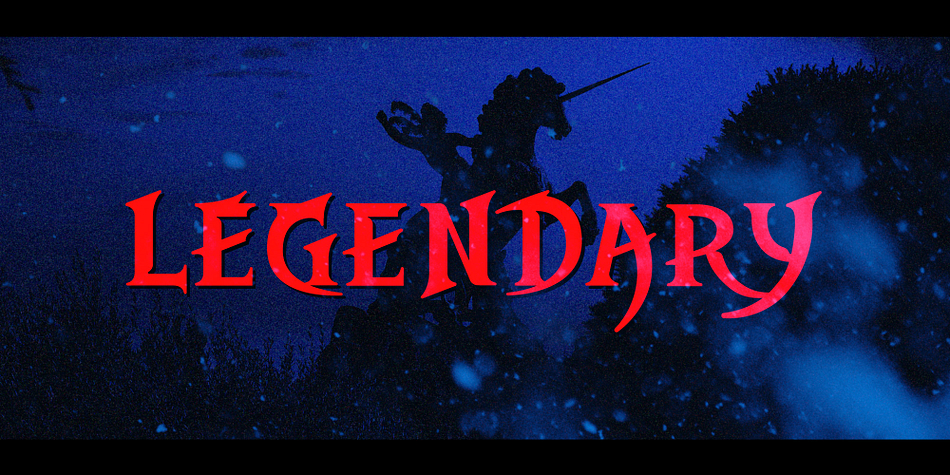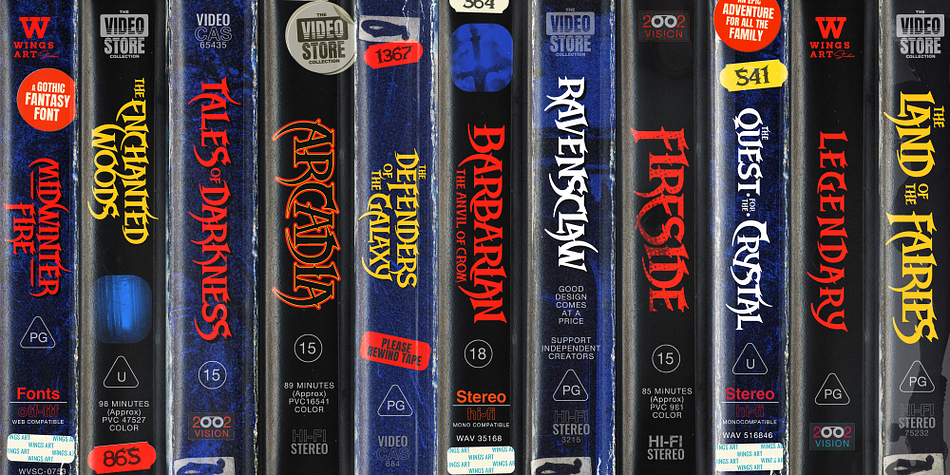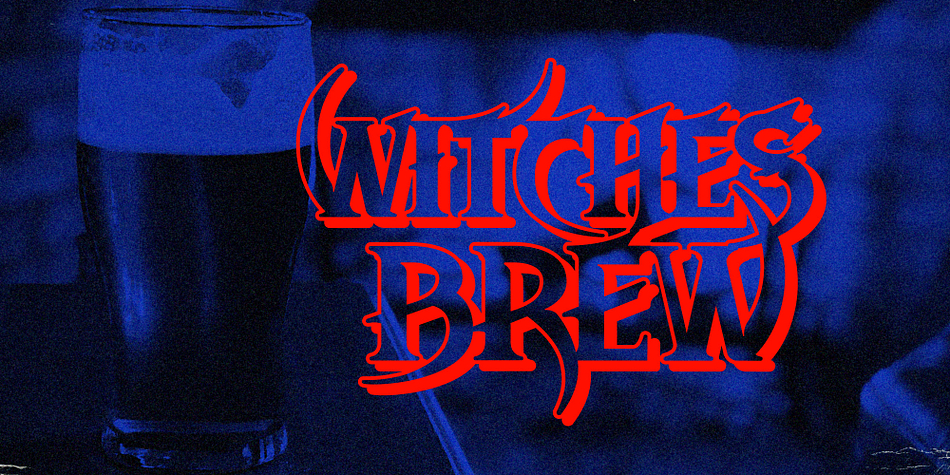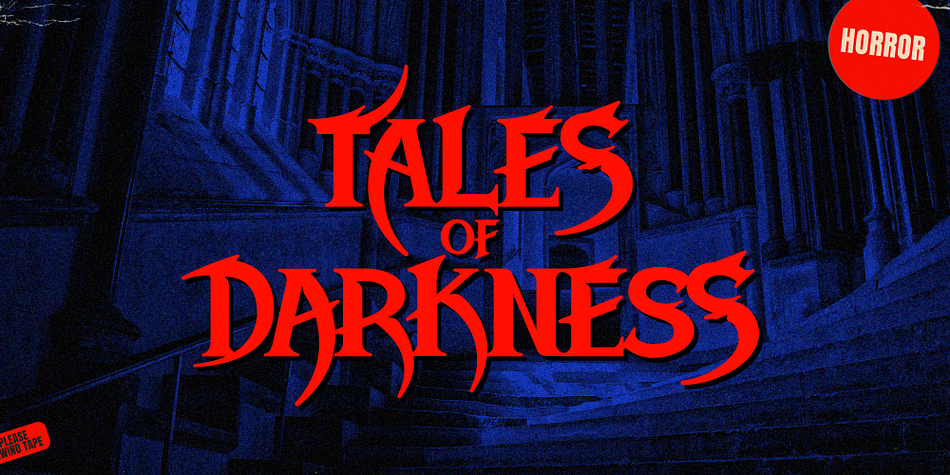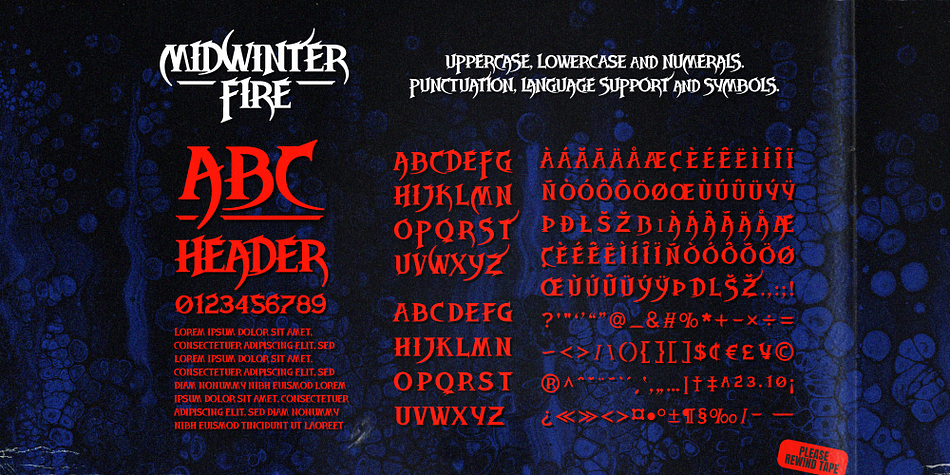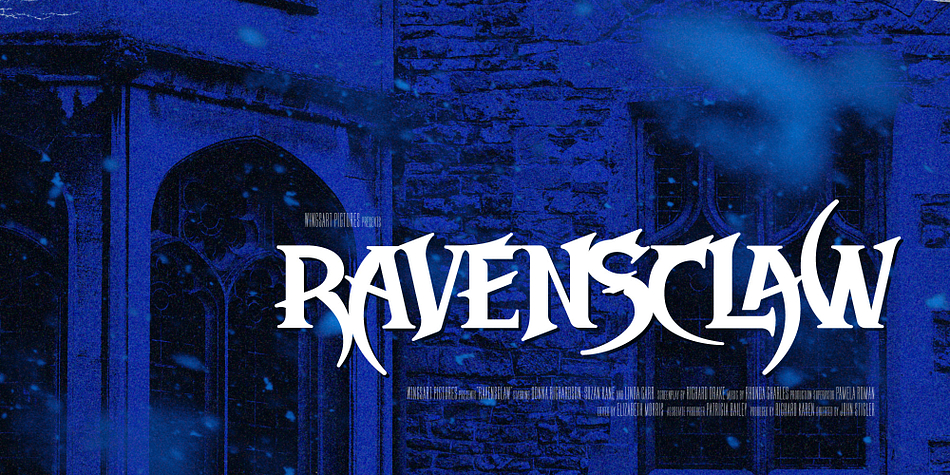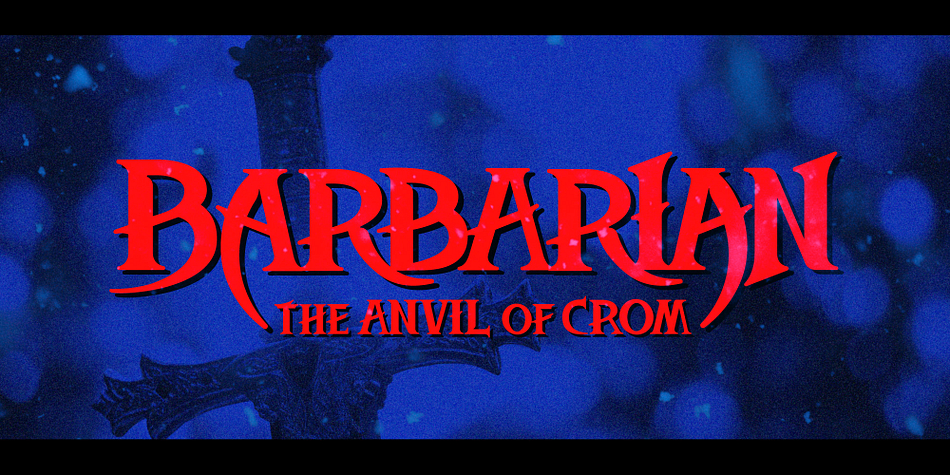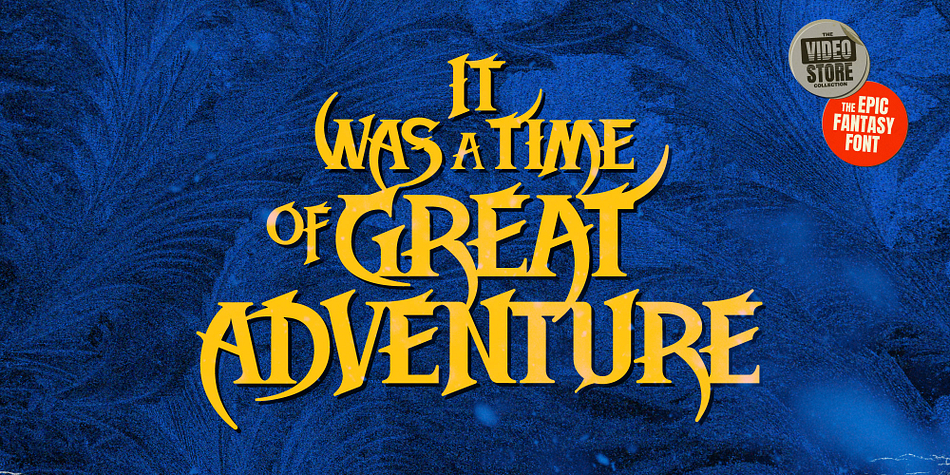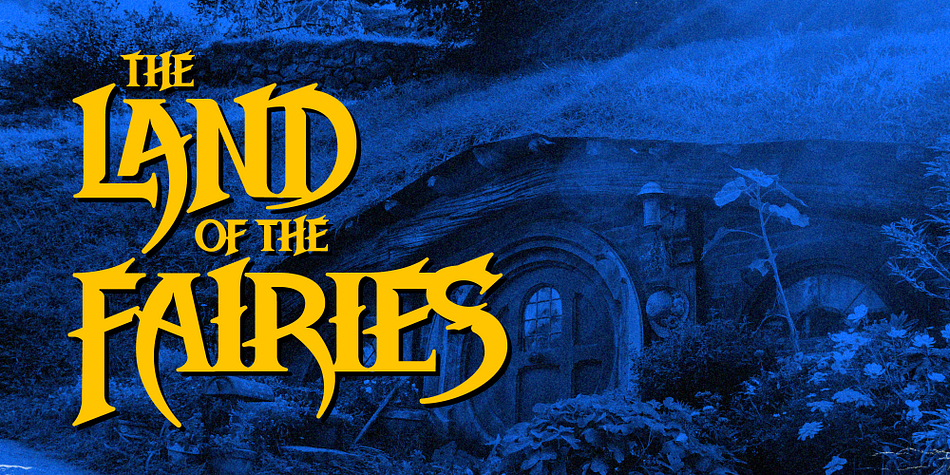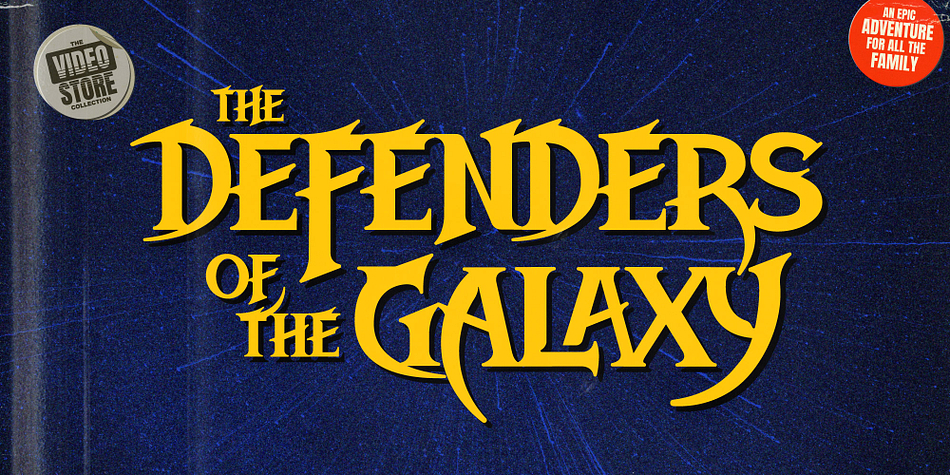
Midwinter Fire
Midwinter Fire is a display serif and dingbat font family. This typeface has two styles and was published by Wingsart Studio.
A decorative serif font inspired by tales of Gothic fantasy and horror.
Inspired by Gothic cathedrals, ancient myths and campfire horror stories, Midwinter Fire is a font for the coming of autumn when our days become shorter, darkness closes in and the snow begins to fall. It’s for those chilling tales of terror and fairy tales that caution us not to go into the woods.
Midwinter Fire is a versatile serif font, classical in style that can be applied to book covers, movie titles, rock albums, arcade games or even a vintage ale! It’s the perfect choice for a decorative Gothic look that remains readable at smaller sizes.
Midwinter Fire is an all-caps serif font that includes lots of alternative characters and underlines along with numerals, punctuation and language support.